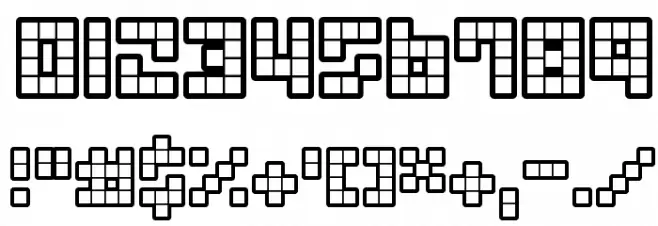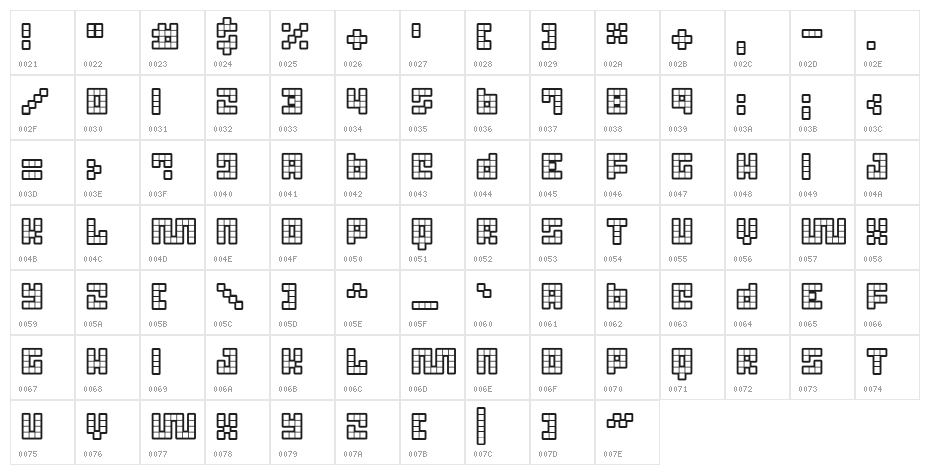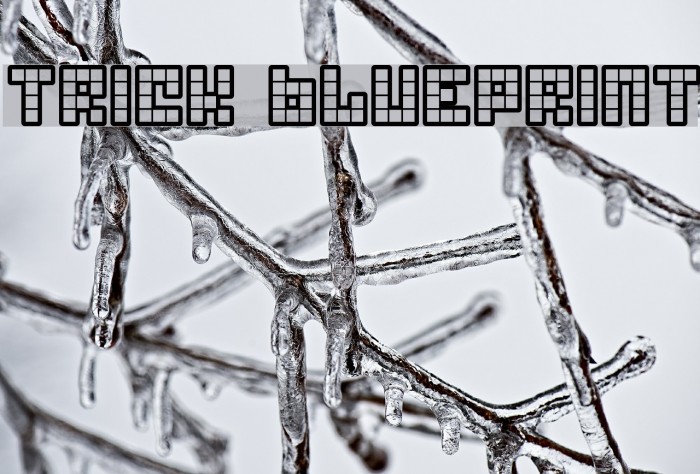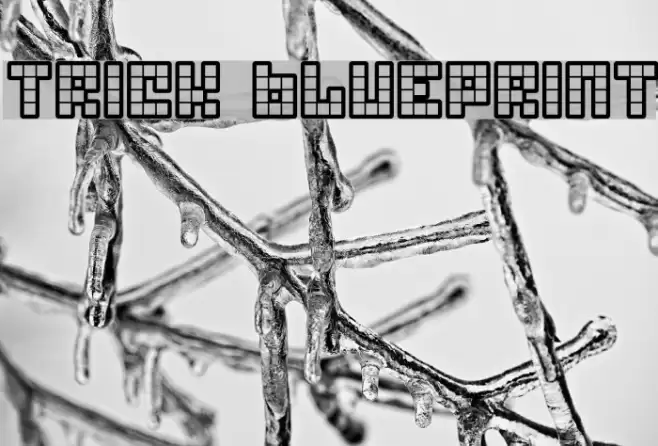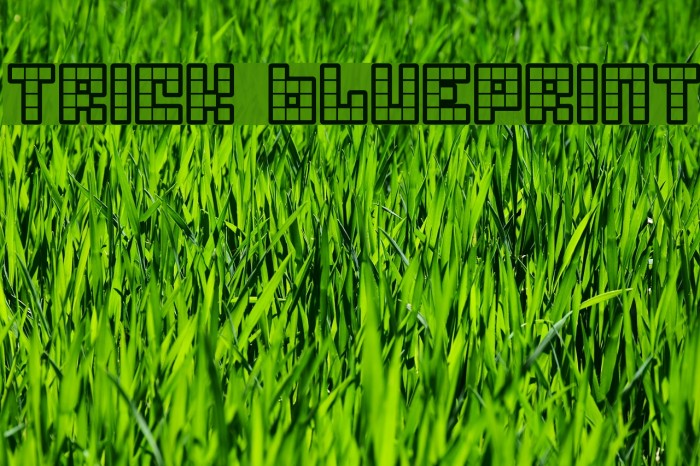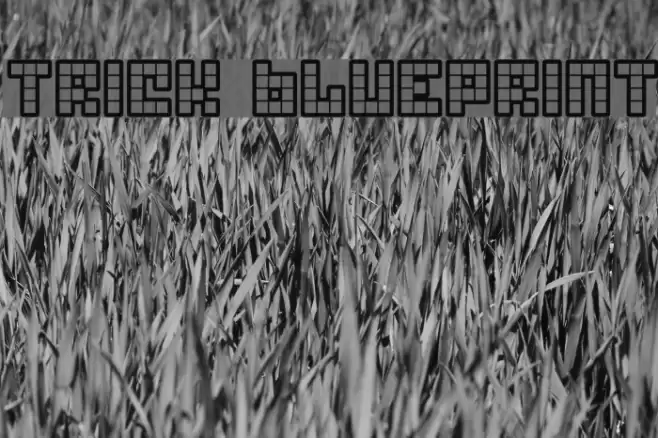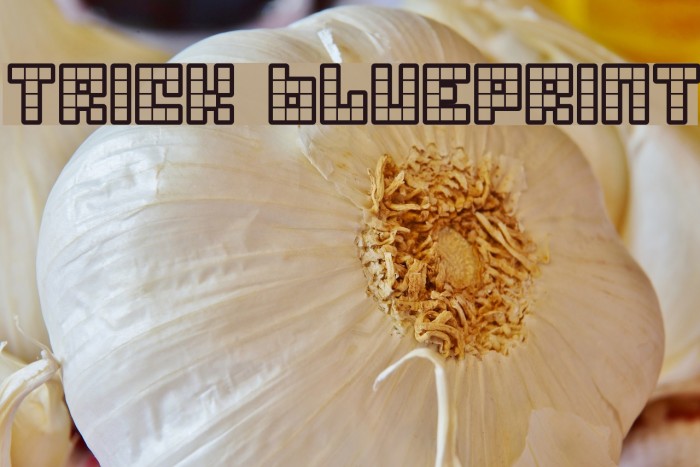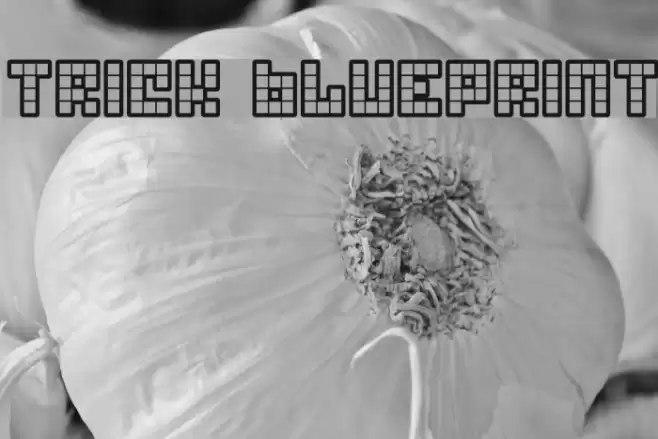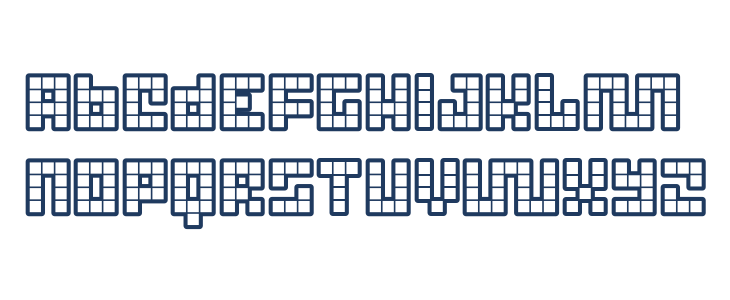
Trick Blueprint Font
Trick Blueprint Description
This font features a unique grid-based design, where each character is constructed from a series of interconnected squares, creating a pixelated, geometric appearance. The uniformity of the grid gives it a structured and modern look, while the open spaces within each character add a sense of lightness and playfulness. The font is highly decorative, making it ideal for projects that require a bold and eye-catching typeface. Its distinct style is reminiscent of digital or retro gaming aesthetics, making it suitable for creative and tech-oriented designs.
Proposed ProjectsIdeal for digital art, retro gaming designs, tech branding, and creative posters.